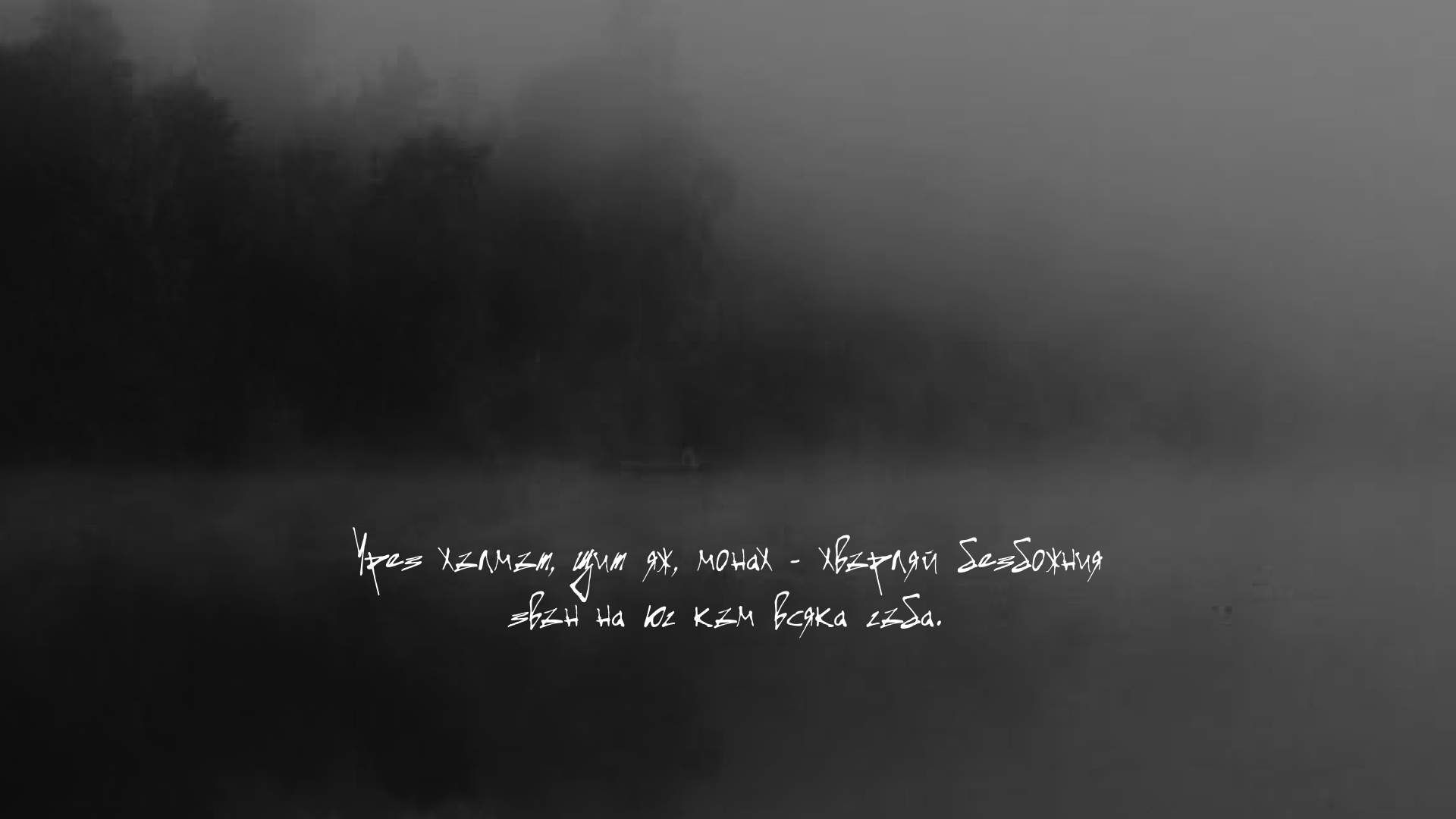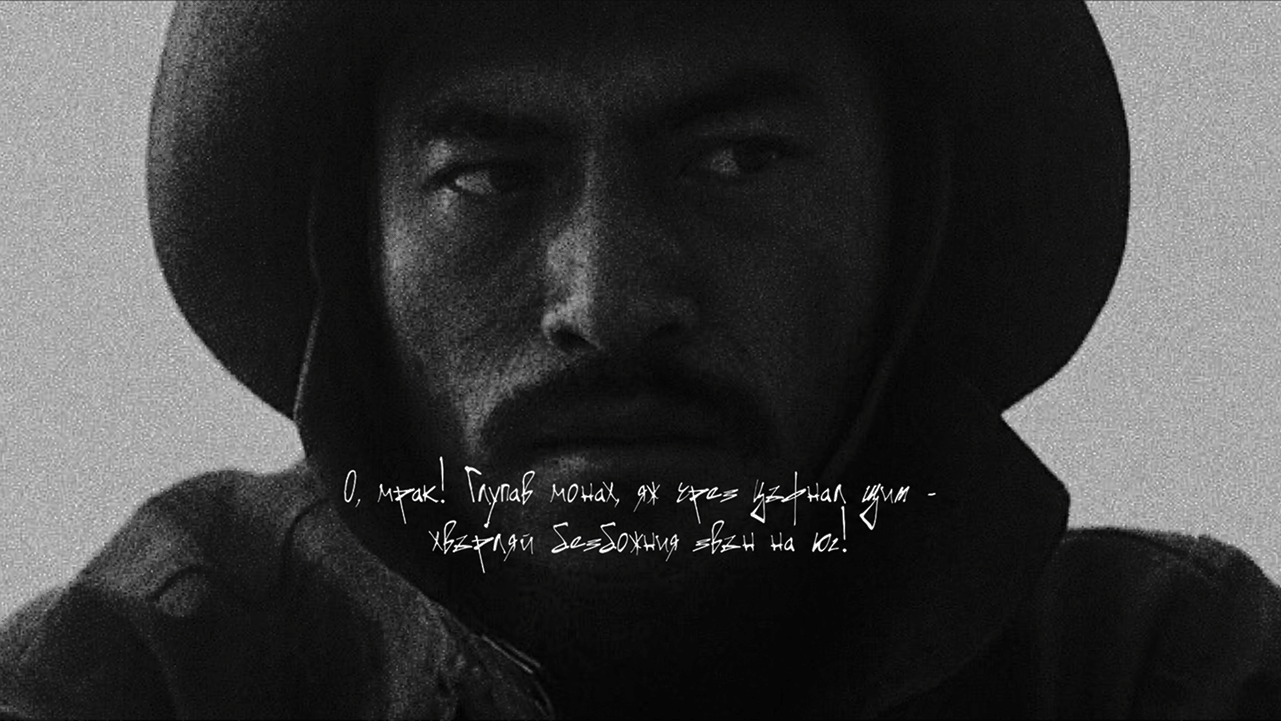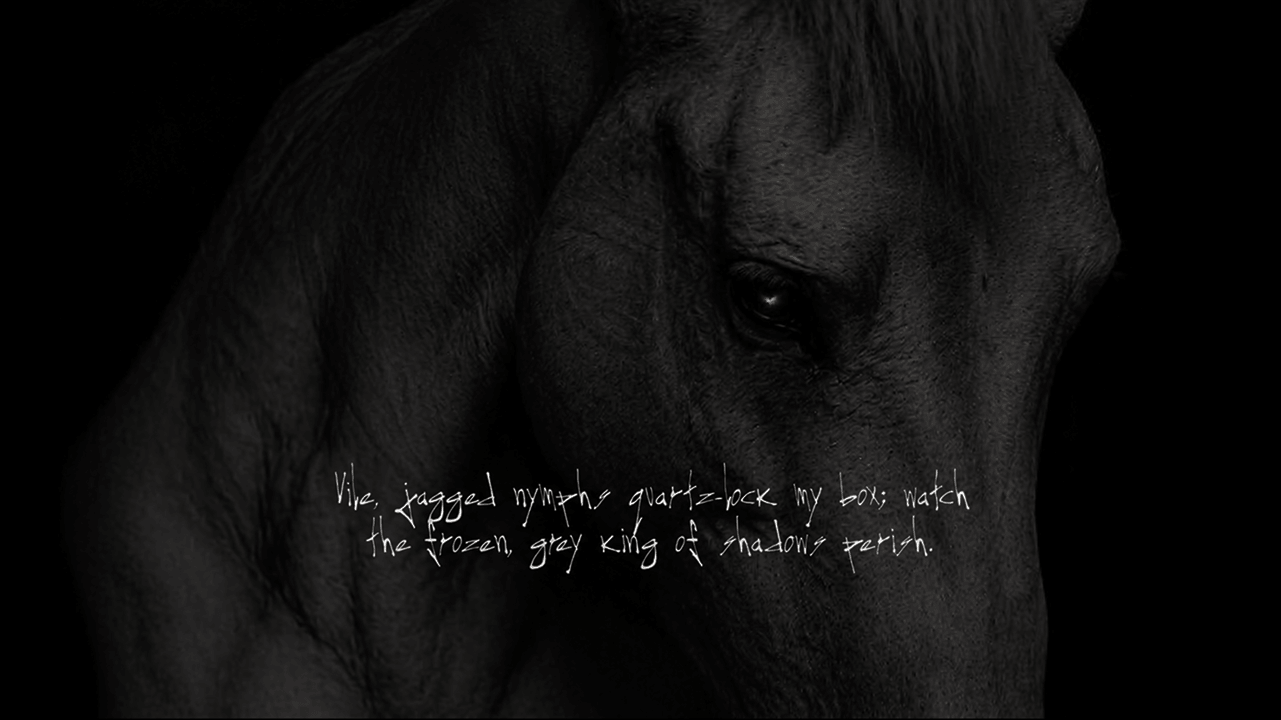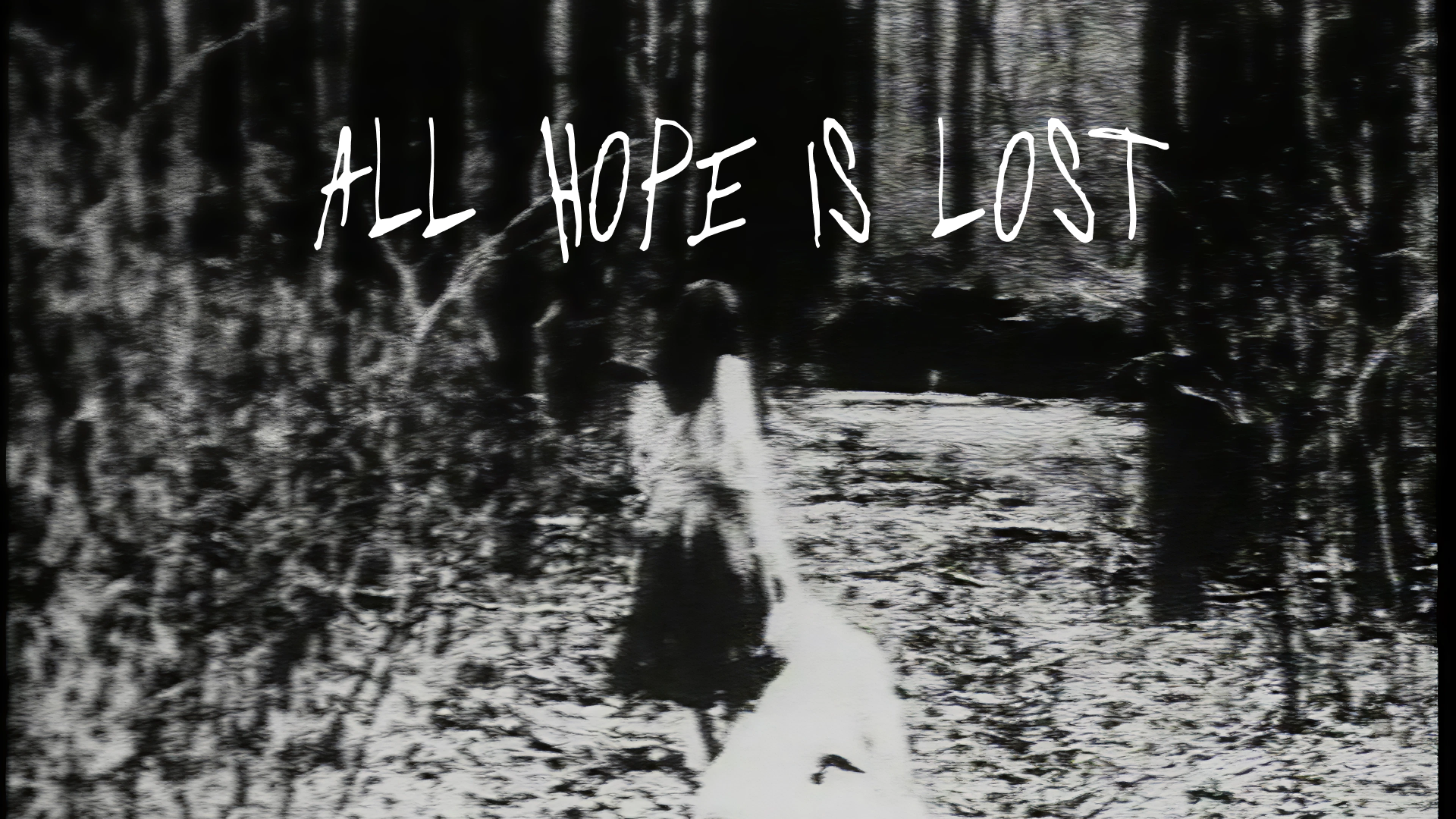
handwritten grundge cyrillic horror ver 003-r
Abduction Regular
is а typeface created by NeedMoreFonts. It is completely handwritten with a dip pen on paper. It creates a tense feel of rebellion. Its bold strokes evoke an eagerness towards freedom. Abduction is ideal for the underground culture from musicians to indie movie projects.
Specimen of Abduction Regular showing Bulgarian Cyrillic subtitles on a movie frame of a character. Specimen of Abduction Regular showing English subtitles on a movie frame of a mythological creature. Specimen of Abduction Regular showing Bulgarian Cyrillic on a movie frame of a boat in a mood lake. Specimen of Abduction Regular showing English subtitles on a movie frame of a mythological creature.